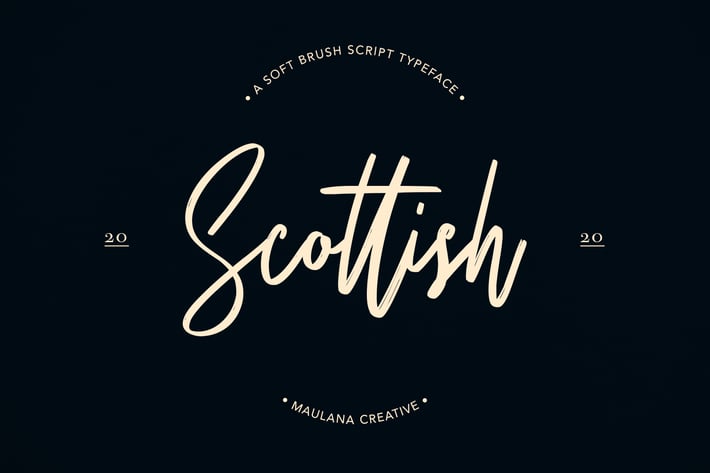
Scottish Brush Script Typeface
Give your designs an authentic handcrafted feel. "Scottish Brush Script Typeface" is perfectly suited to signature, stationery, logo, typography quotes, magazine or book cover, website header, clothing, branding, packaging design and more.